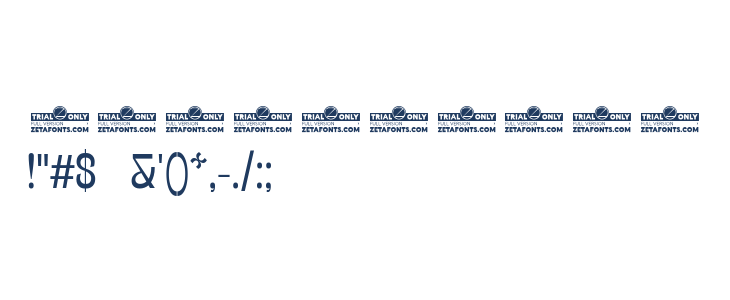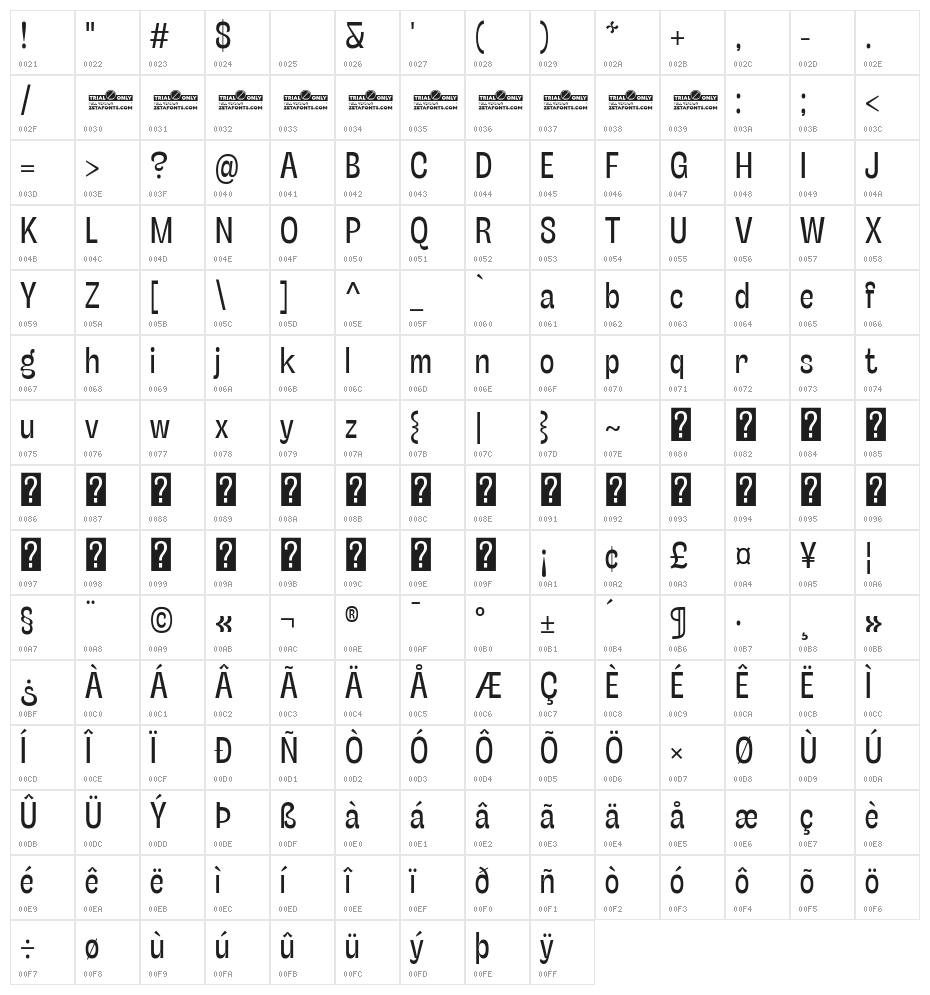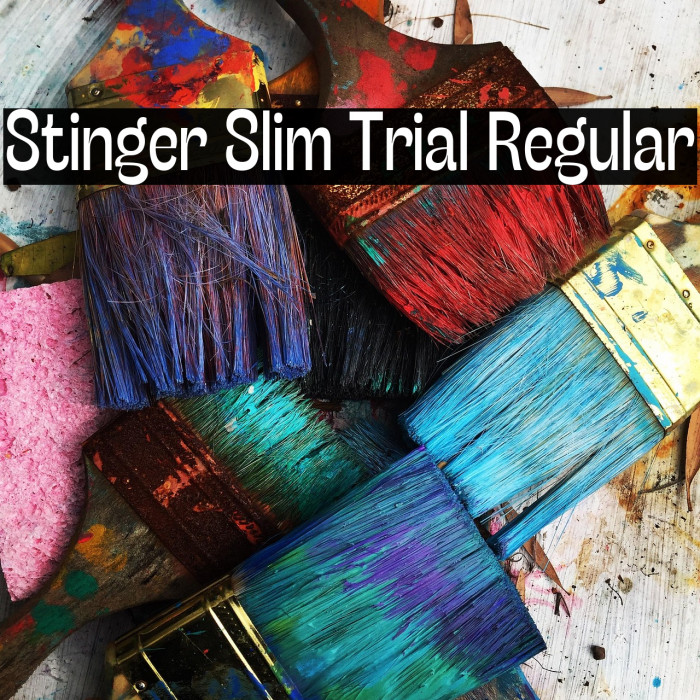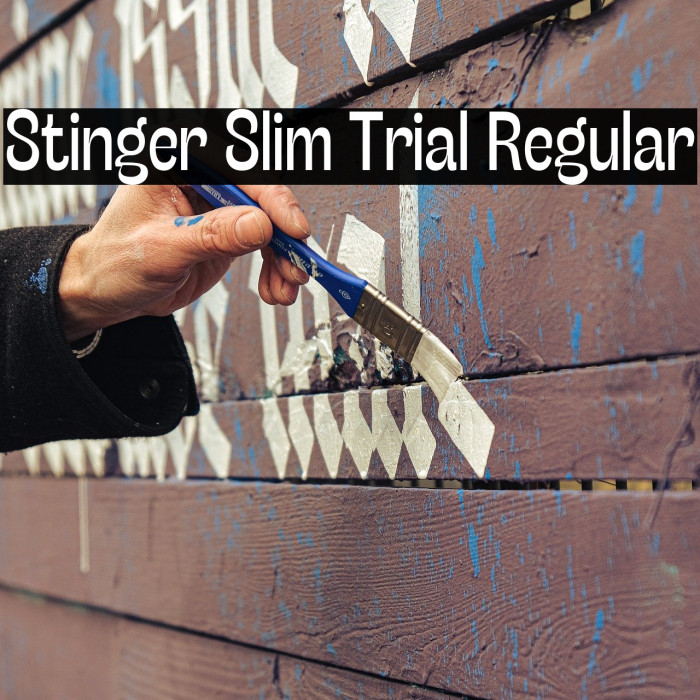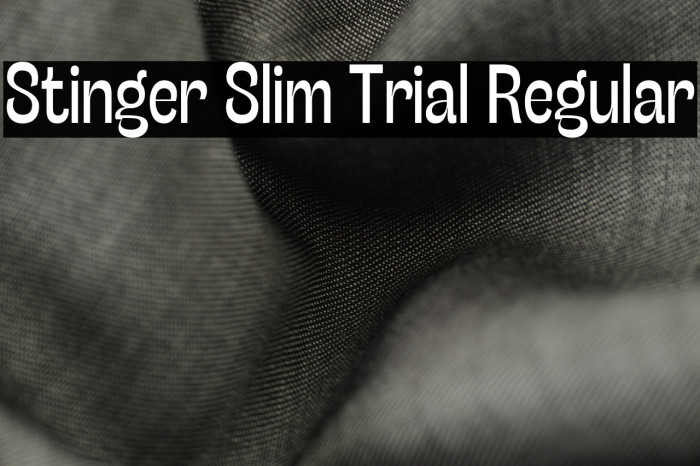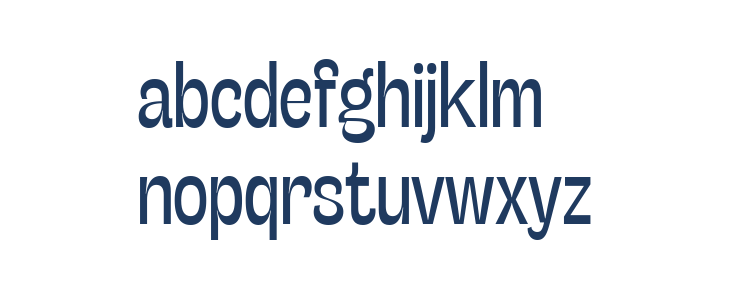
Stinger Slim Trial Regular Font
Stinger Slim Trial Regular Description
This font features a clean and modern sans-serif design with a slim profile, making it ideal for contemporary projects. The uppercase and lowercase letters maintain a consistent stroke width, contributing to its sleek appearance. The characters are well-balanced, with a slight curvature that adds a touch of elegance. The numerals and special characters are designed to complement the alphabet, ensuring readability and style. Its versatility allows it to be used in various design contexts, from digital to print media.
| Proposed Projects | Ideal for branding, web design, advertising, and editorial projects. |